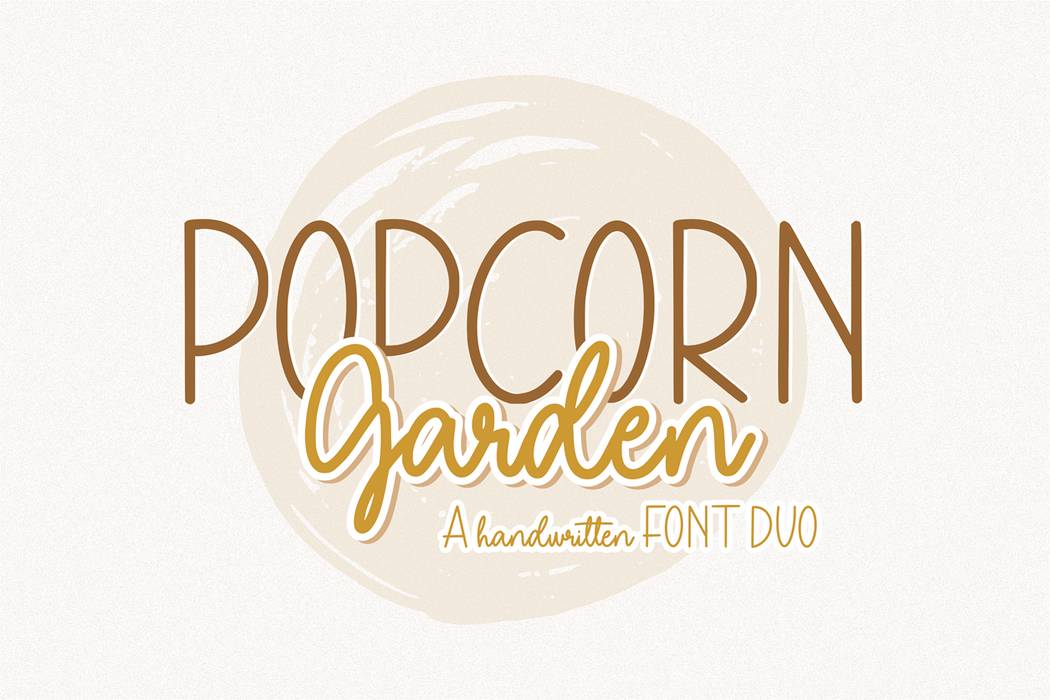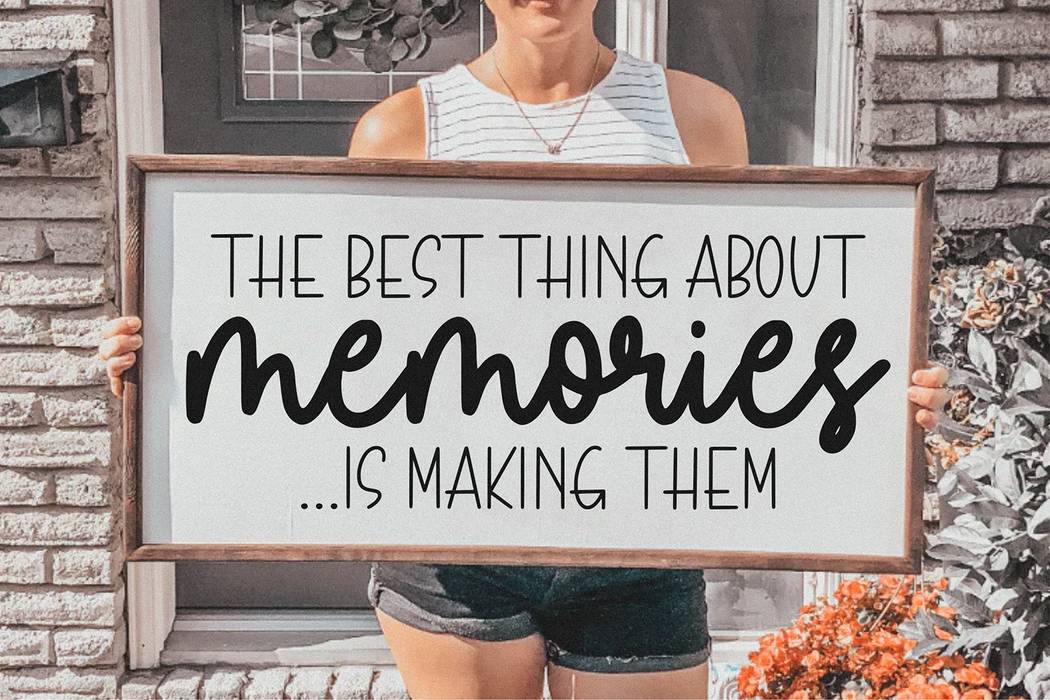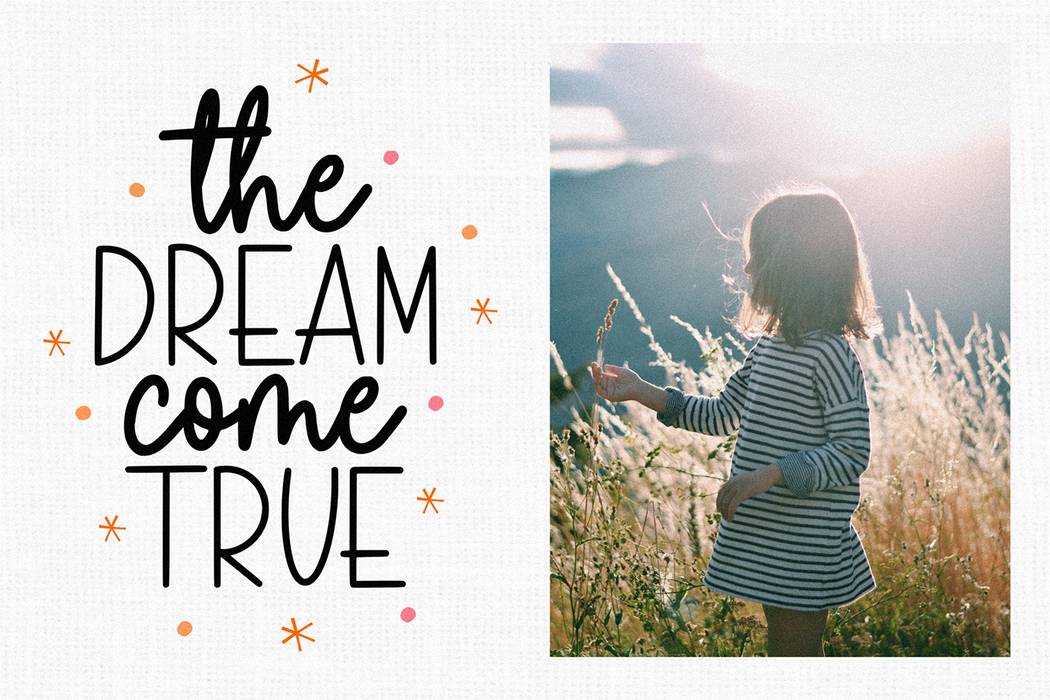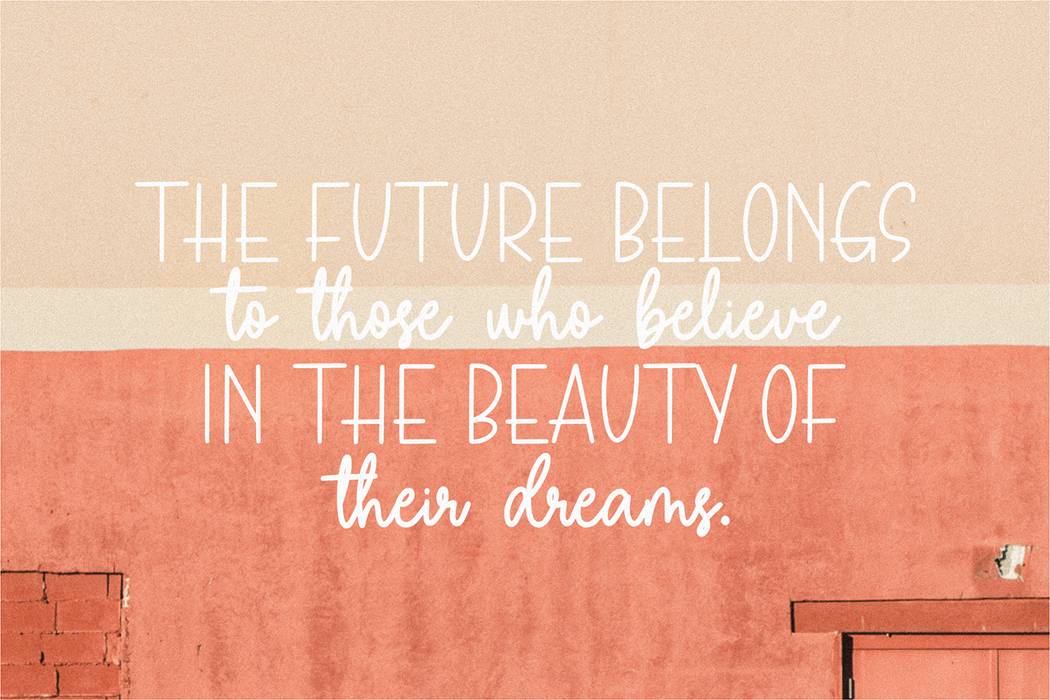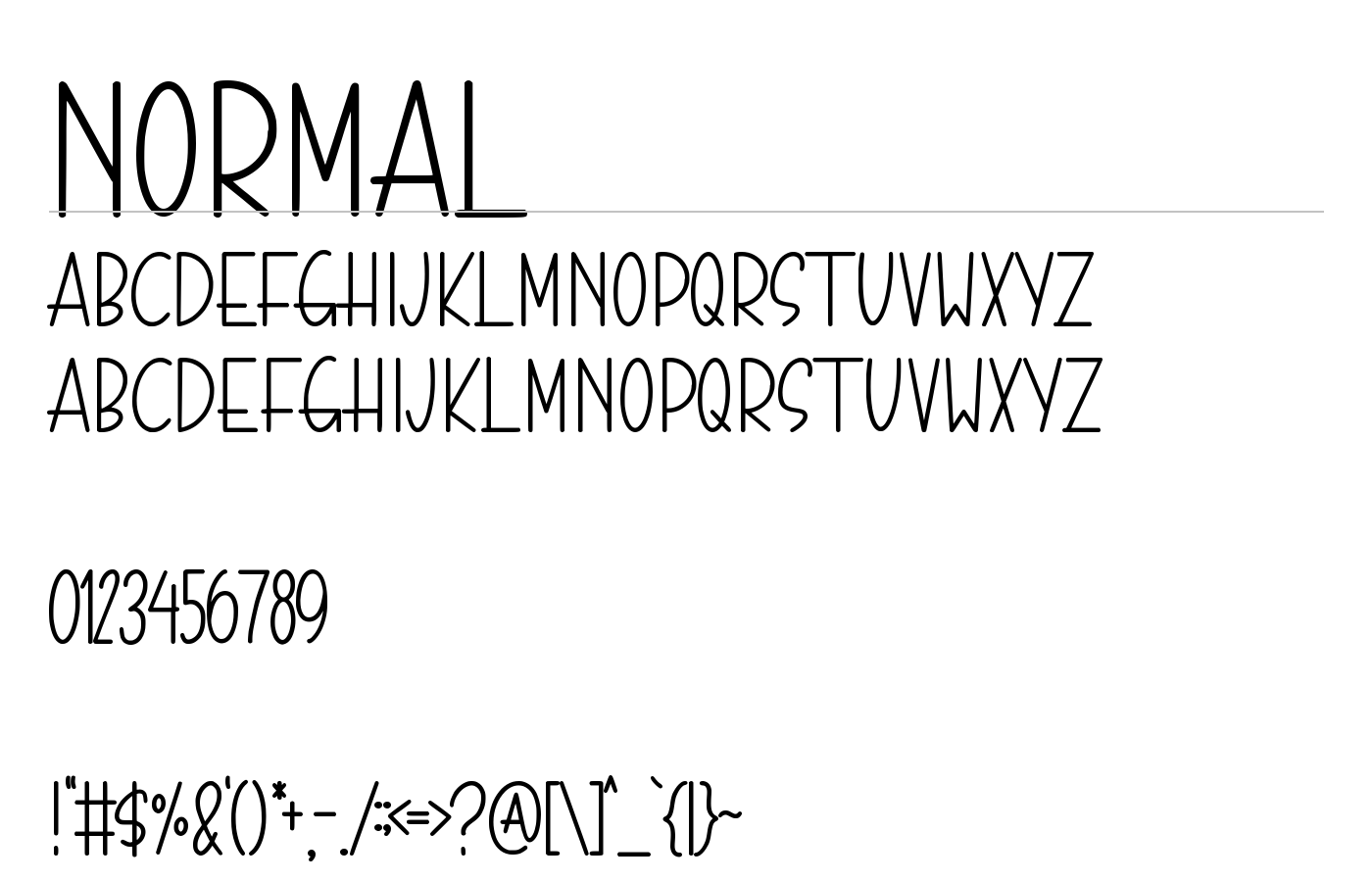
Popcorn Garden is a playful and slender sans serif font with a handwritten feel, featuring tall, narrow letterforms and a casual, friendly style. Its clean, smooth lines and quirky character shapes make it ideal for informal, creative projects like invitations, children's books, or branding that aims to convey a fun and approachable vibe. This font shines in headlines and display uses where a touch of whimsy and lightheartedness is desired.
Popcorn Garden Font
About Popcorn Garden Font
| Font family | Popcorn Garden Font |